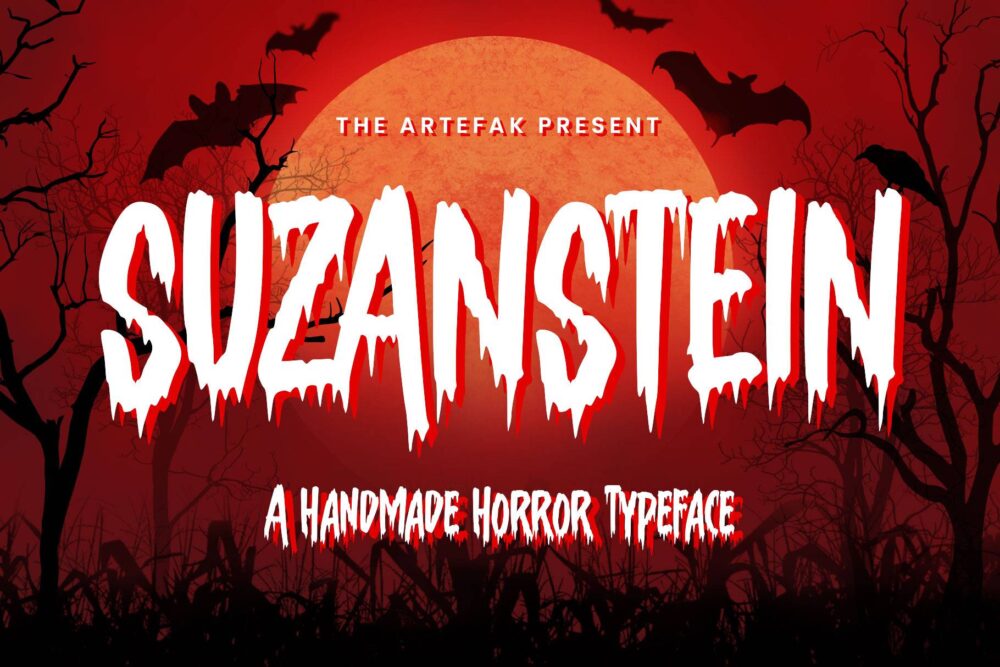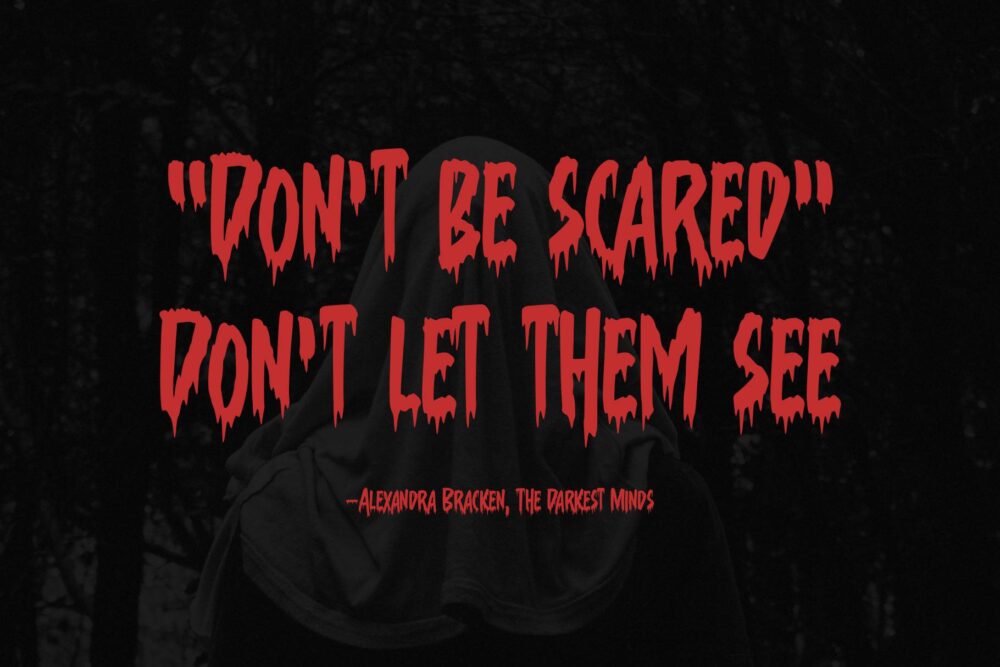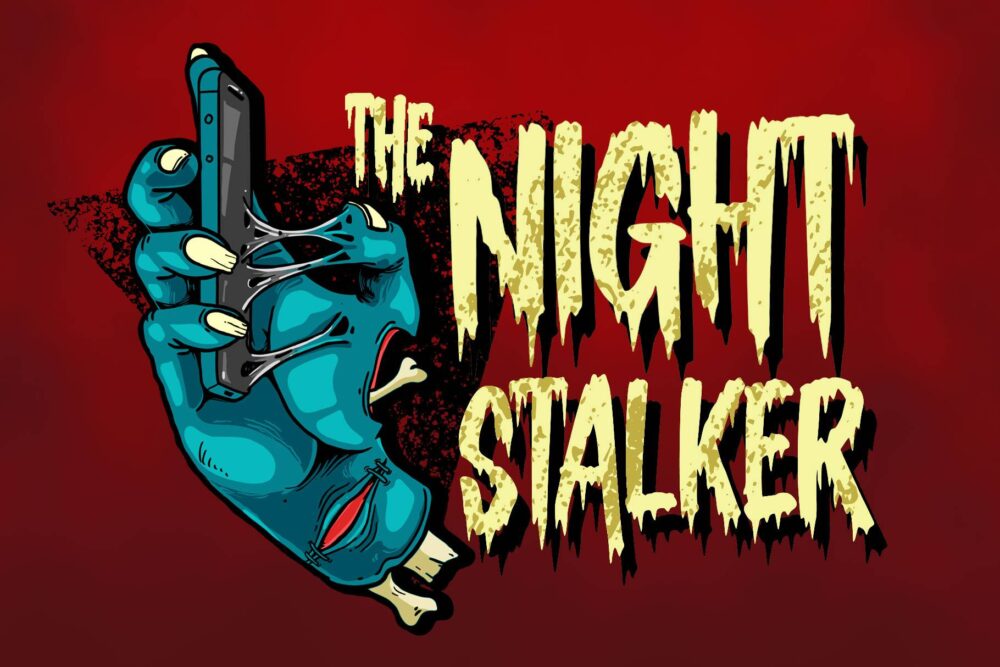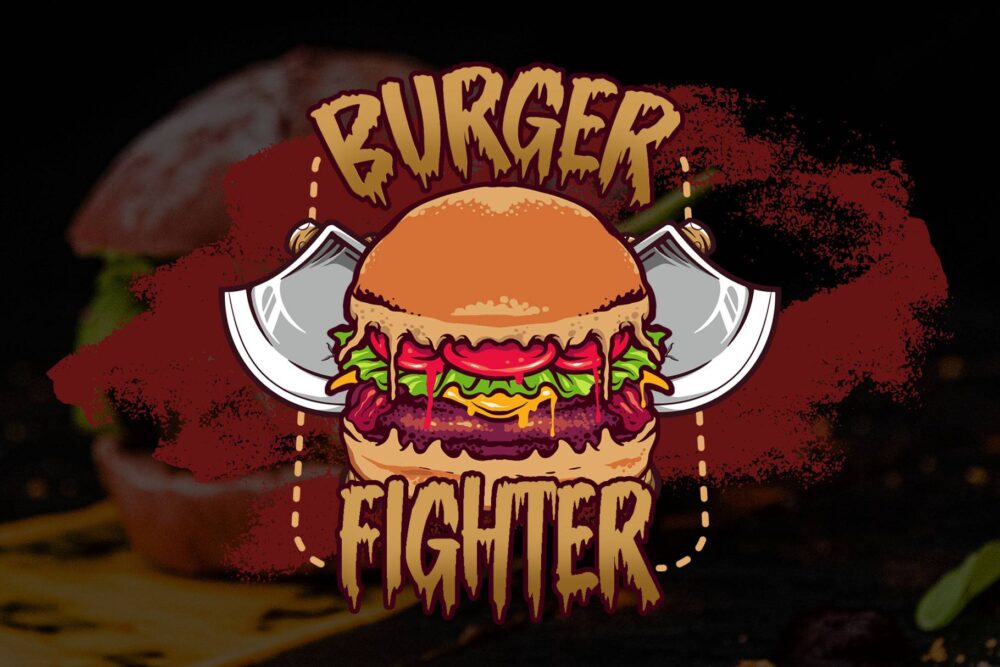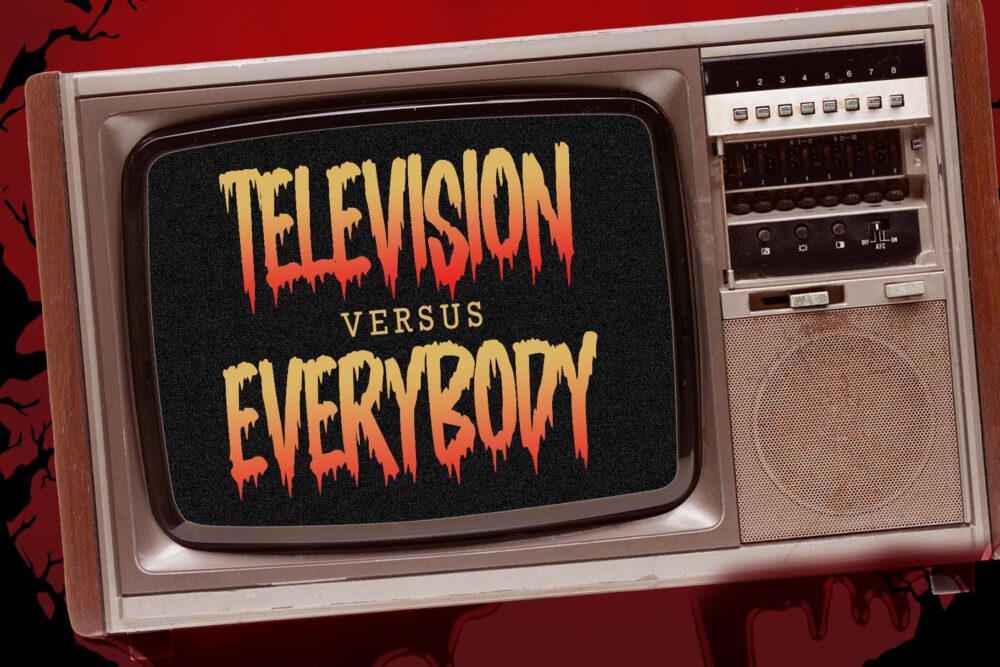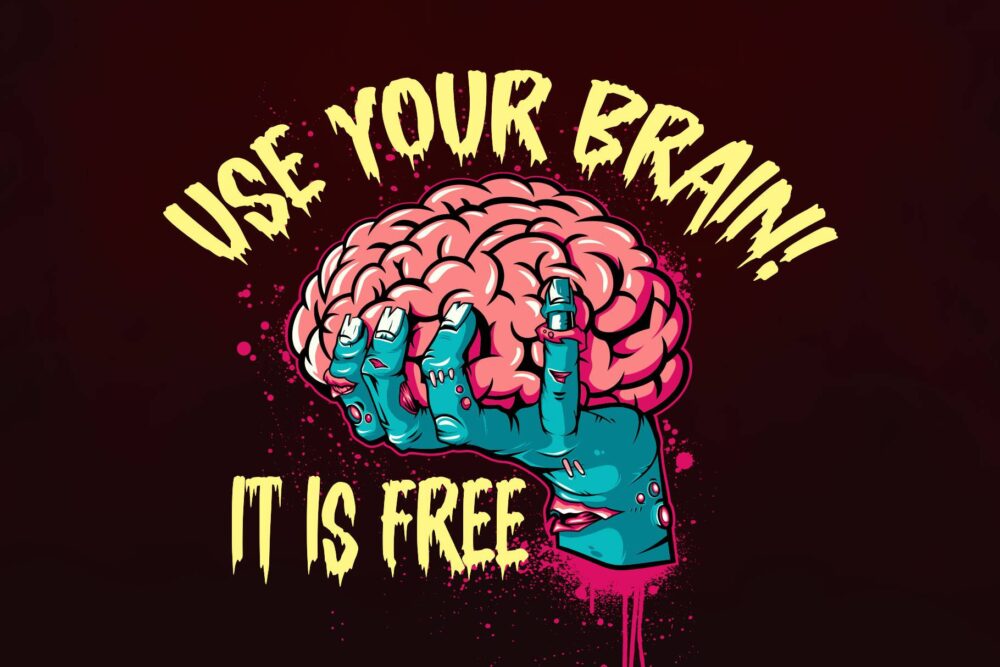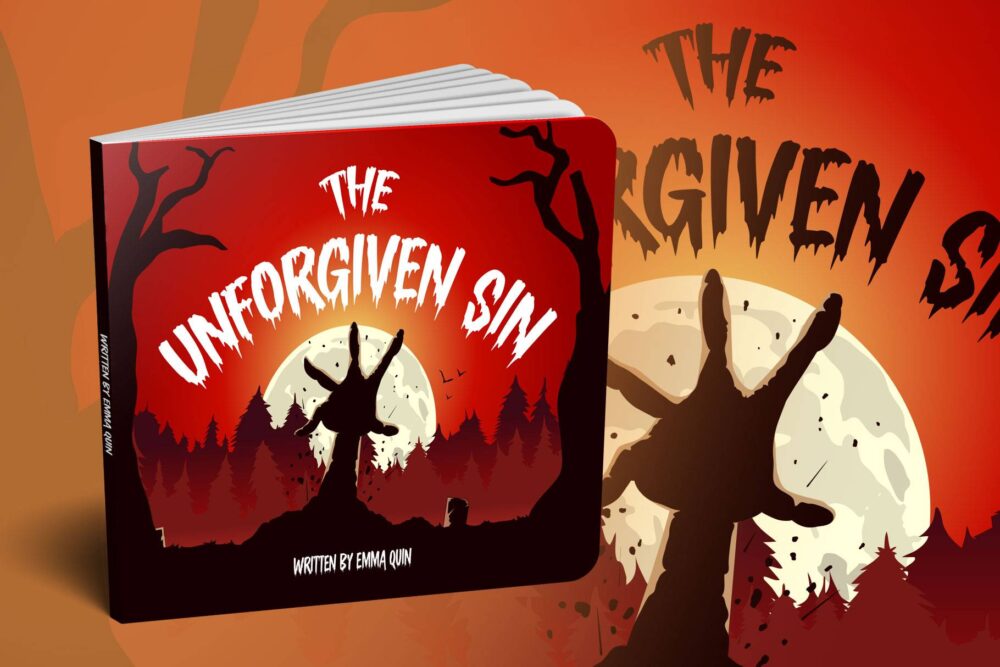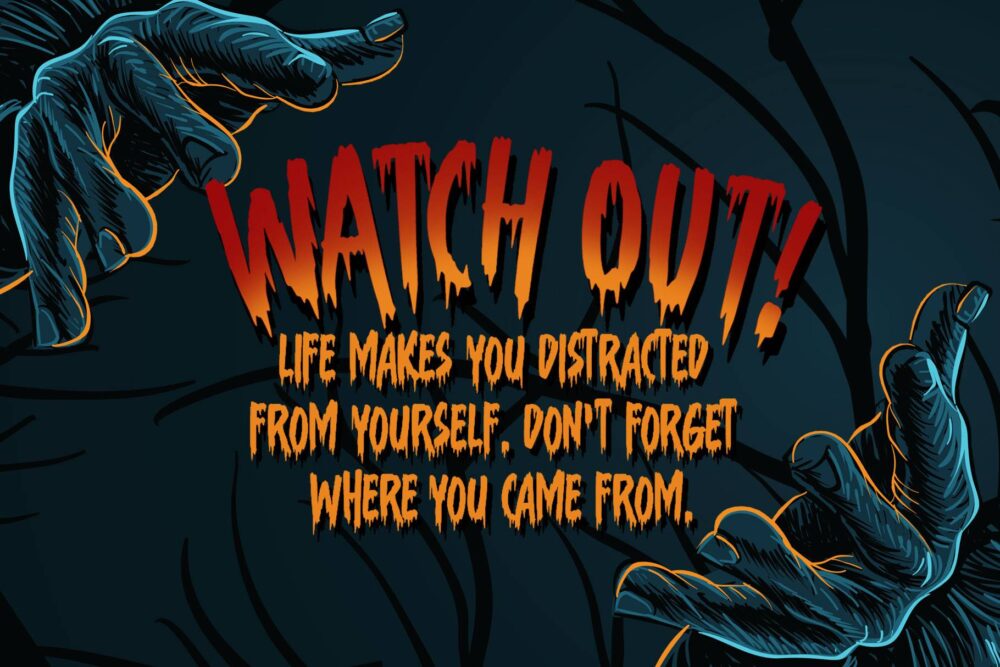
Suzanstein
When horror and retro are combined in a more elegant composite, we present Suzanstein! Because darkness is not always about ghosts, death, and sadness. Suzanstein takes you to explore other possibilities.
This font is perfect for horror themes surely, but can also be used on themes of darkness, passion, youth, idealism, social issues, even motivation. Suzanstein is an all-caps font with small caps and comes with an OpenType feature to add variety to your designs.
You can apply Suzanstein for T-shirts, logos, posters, flyers, stickers, quotes, book covers, short editorial, and many more!
• Uppercase
• Smallcaps
• Numbers
• Punctuation
• Symbols
• Multilingual accents
• Stylistic alternates
• Ligatures